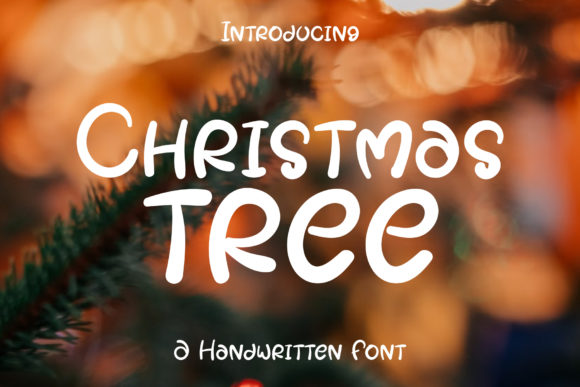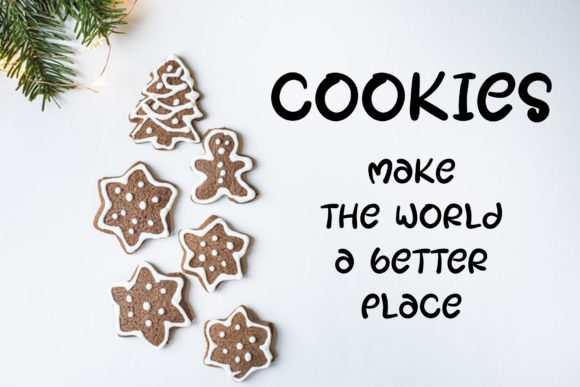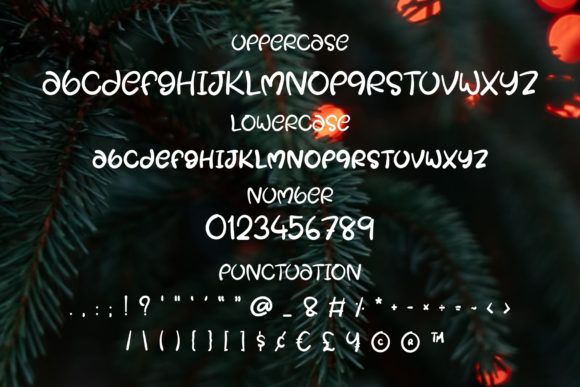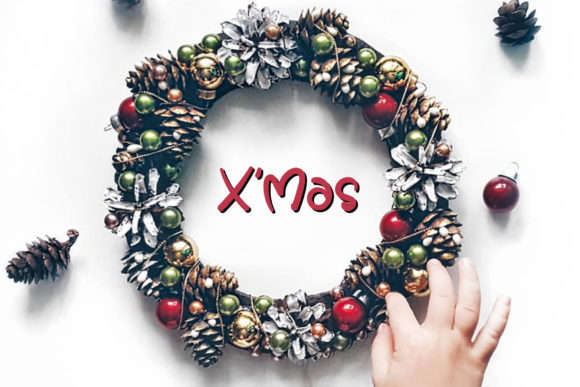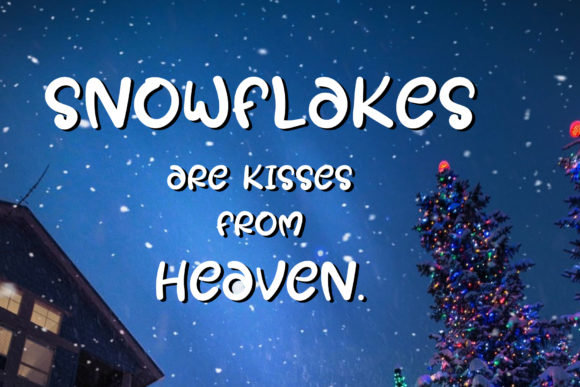
Christmas Tree Font
About Christmas Tree Font
Christmas Tree is a fun and joyful handwritten font. Friendly and modern, this font will make each of your designs look wonderful.